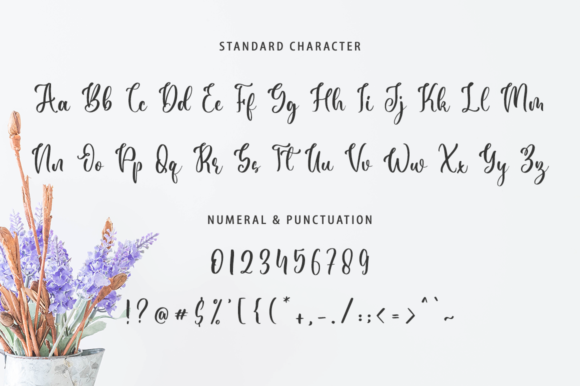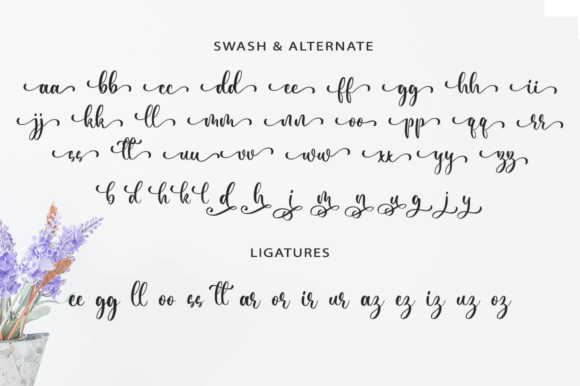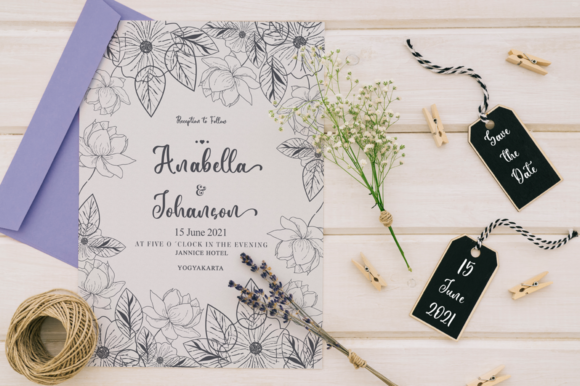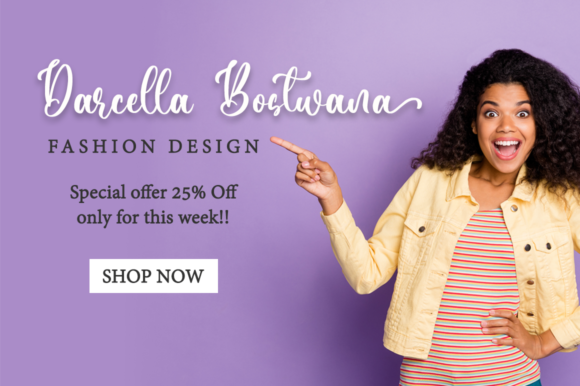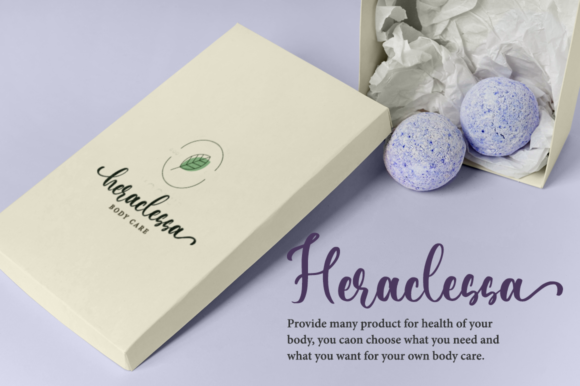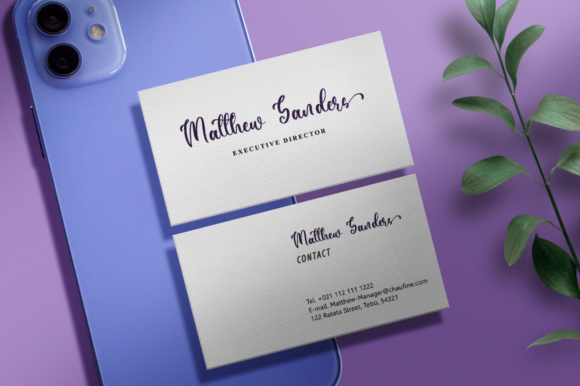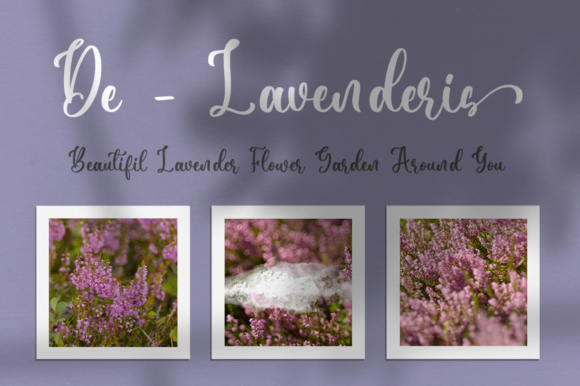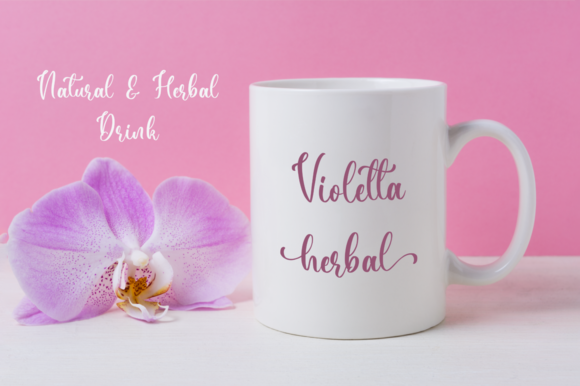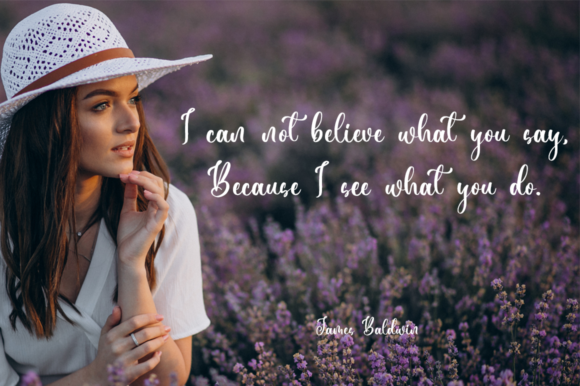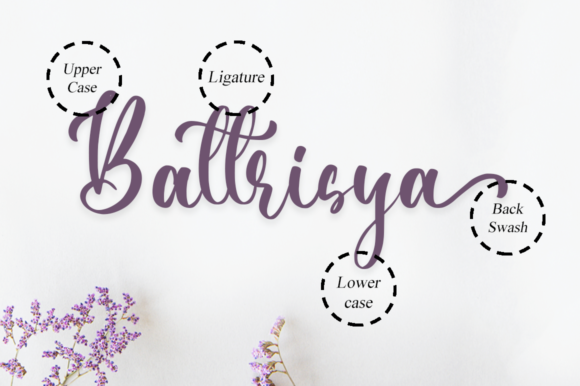
Daniella Font
About Daniella Font
Daniella is a stunning script font that captivates with its intricate details and meticulous craftsmanship. Every curve, loop, and stroke of this font is carefully designed to bring elegance and sophistication to your projects. With its high level of detail, Daniella adds a touch of refinement and beauty to any design.
No matter the topic or theme, Daniella is a versatile font that can elevate any creation. Whether you’re designing wedding invitations, branding materials, greeting cards, logos, or any other project that requires a touch of elegance, Daniella has the potential to make it shine.
The font’s PUA (Private Use Area) encoding allows you to easily access all of its glyphs and swashes, giving you the freedom to customize and embellish your designs. The extensive set of swashes and alternate characters provides endless possibilities for creating unique and personalized typography.
From its graceful ascenders and descenders to its stylish flourishes and ligatures, Daniella embodies a sense of sophistication and charm. The flowing connections between letters create a seamless and harmonious look, making the text appear as if it was effortlessly handcrafted.
The intricate details and fine lines of Daniella make it a font that demands attention. Its carefully crafted letterforms add an air of luxury and professionalism to your designs. Whether you’re designing for print or digital media, Daniella’s neat and precise construction ensures readability and legibility at any size.
With Daniella in your font library, you have a versatile tool that can enhance a wide range of projects. Its timeless appeal and attention to detail make it suitable for various design styles, from classic and elegant to modern and refined.
Embrace the beauty and sophistication of Daniella and let it transform your designs into works of art. Whether you’re creating invitations, branding materials, packaging, or any other project, Daniella is ready to add a touch of elegance and make a lasting impression. Explore the endless possibilities of this dazzling script font and unlock your creativity.